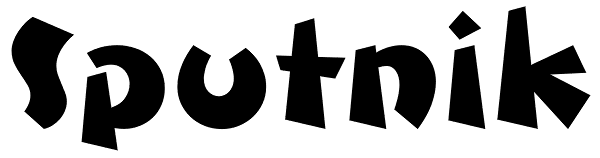
Sputnik
Bold-faced and fancy-shaped Sputnik makes any kind of typing a funny game. With simply but surprisingly characters this font has a cool look. And the uneven outline style is all odds. Sputnik is available in regular and outline. Both styles have the...
Sputnik
Sputnik Outline